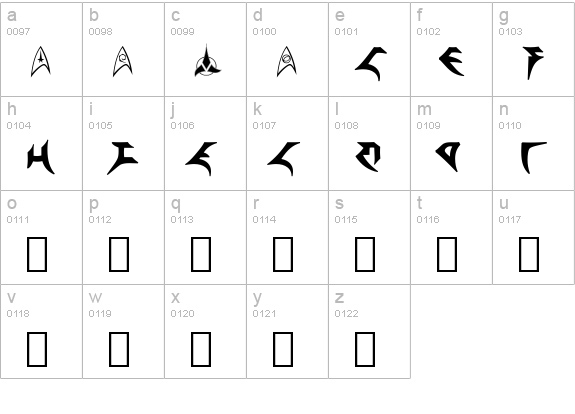
Star Trek Pi BT Font Details
Introducing Star Trek Pi BT, the font that will transport you to the future with its sleek and futuristic design. This font is perfect for all your sci-fi and space-themed projects, whether you're creating a poster for a Star Trek convention or designing a website for a futuristic tech company. Star Trek Pi BT is a versatile font that can be used for both headlines and body text, making it the perfect choice for any type of project. Its clean lines and bold characters give it a modern and professional look, while its unique and futuristic elements add a touch of excitement and adventure. But what sets Star Trek Pi BT apart from other fonts is that it is completely free to download at FontsMarket.com. Yes, that's right, you can get this amazing font without spending a dime. FontsMarket.com is a trusted source for high-quality fonts, and they are proud to offer Star Trek Pi BT for free, so you can bring your creative visions to life without breaking the bank. So why wait? Download Star Trek Pi BT today and take your designs to the next level. Whether you're a seasoned designer or just starting out, this font will inspire you to boldly go where no font has gone before. Get ready to explore new design horizons and make a lasting impression with Star Trek Pi BT. Don't miss out on this incredible opportunity to enhance your projects with a font that is not only stunning but also freely available. Download Star Trek Pi BT now and let your imagination soar.